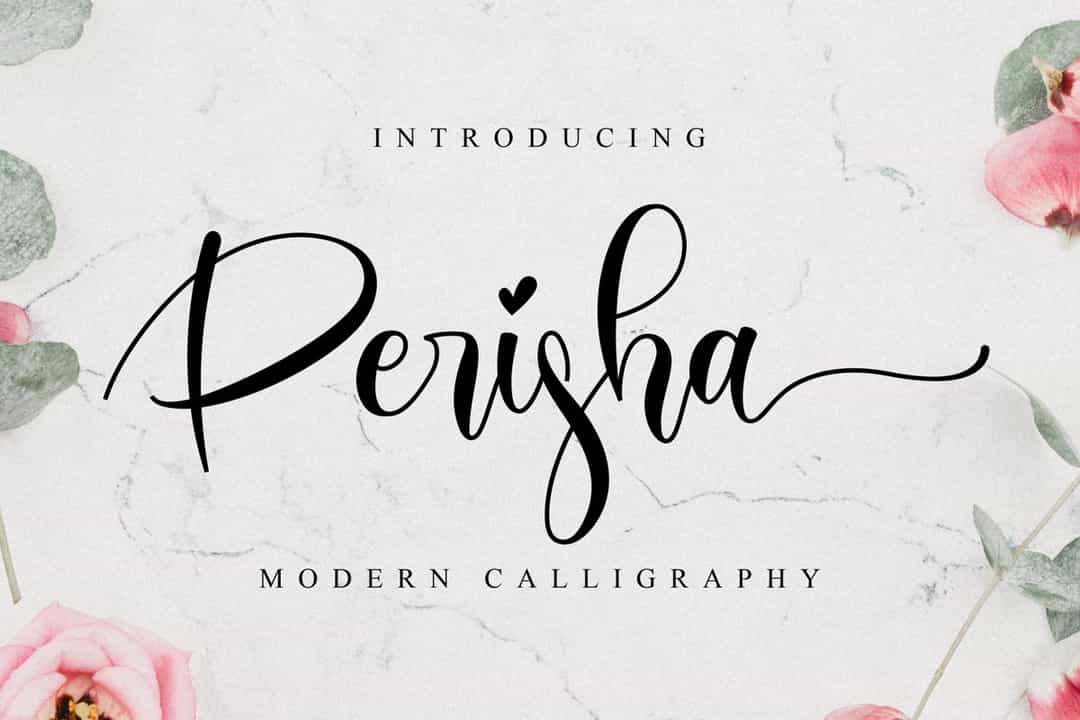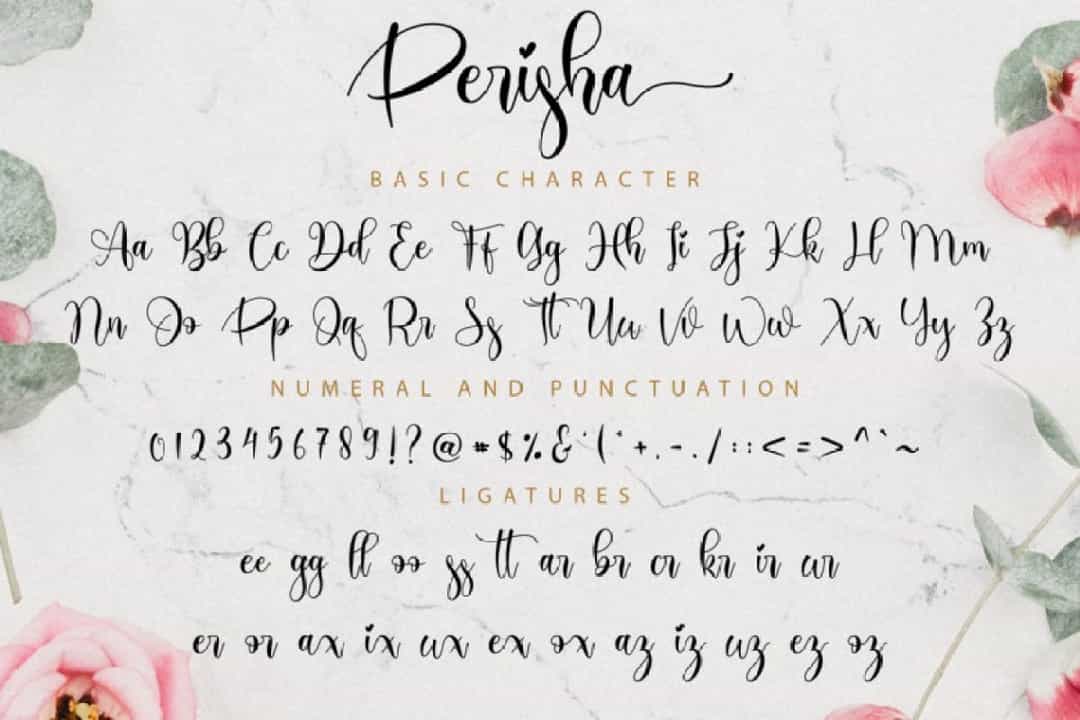
Perisha is a font style with a script writing style and a very beautiful contemporary design. Ideal for design titles like invitations, clothing tags and book titles; For stationery designs for branding greeting cards; Logo packaging designs; T-shirt posters etc – Perisha will provide the touch of elegance.